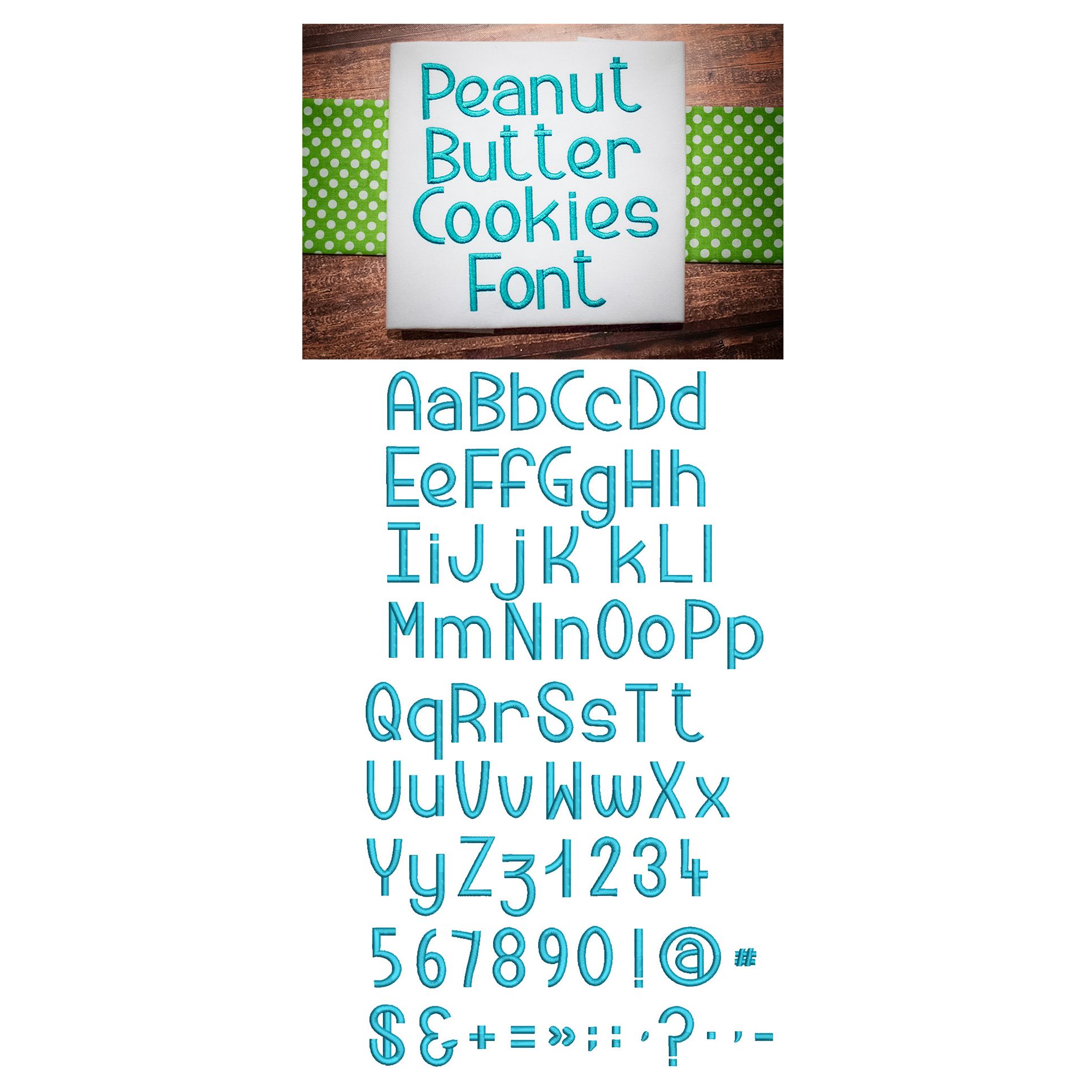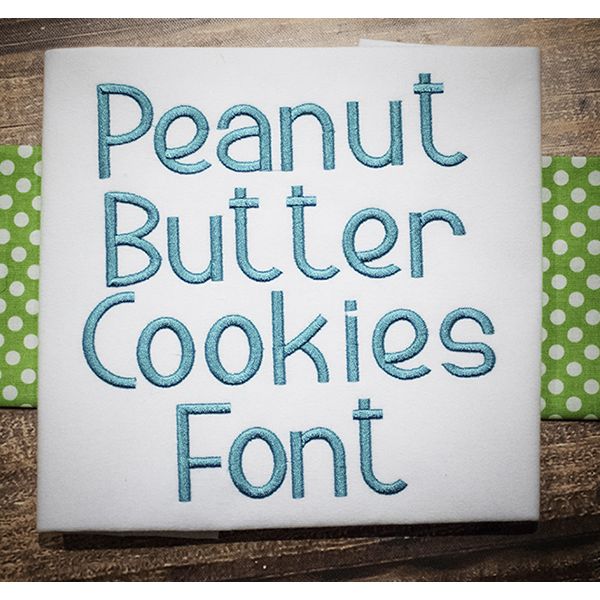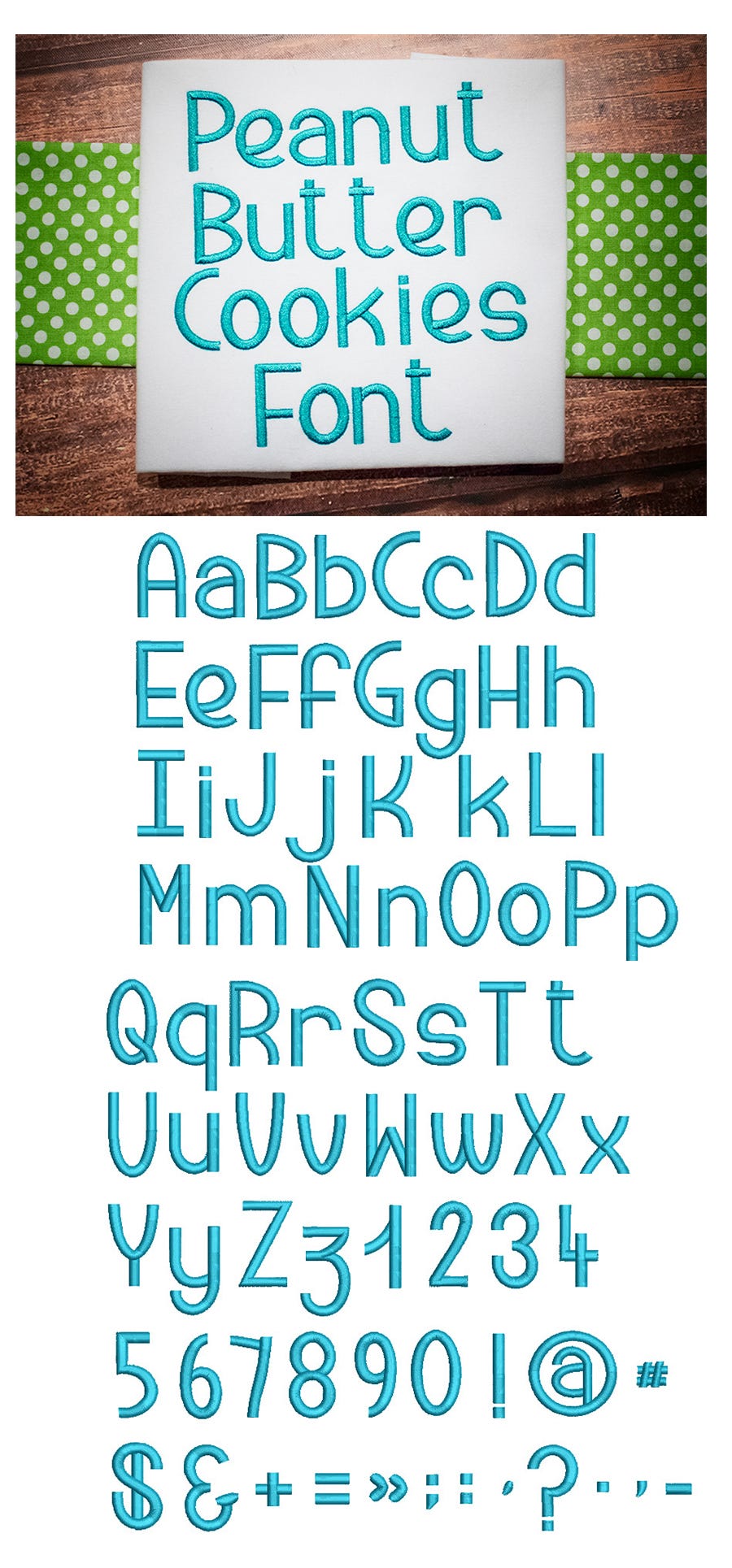
Peanut Butter Cookies Satin Stitch Embroidery Font
Super cute, chunky print font!  All of our font alphabets are 100% manually digitized to bring you maximum stitch quality.